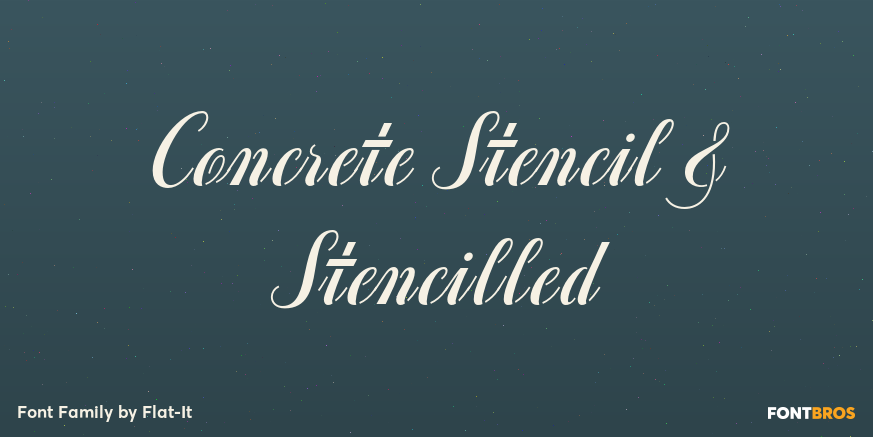
HomeFont BrosScripts: CasualConcrete Stencil & Stencilled Scripts: CasualSpecial EffectScripts: Formal Concrete Stencil & Stencilled FacebookXPinterestWhatsApp 1 of 1 About Concrete Stencil & Stencilled A unique and creative script font, but in a stencil style setup. This is the best stencil script ever.  DOWNLOAD ON FONT BROSThis font is sold and delivered by Font Bros. Font Canyon may earn a commission if you buy through this link. People also explored Ballon Rainbow Font Stronger Font Kouma Font Beautylove Font Centaurus Font Uniser Font Angelicalm Font Beauty Yellow Font Cealisha Font 228 0 TagsConcrete Stencil & Stencilled Font Previous articleEigerNext articleCalligraphia Latina LEAVE A REPLY Cancel reply Comment: Please enter your comment! Name:* Please enter your name here Email:* You have entered an incorrect email address! Please enter your email address here Website: Save my name, email, and website in this browser for the next time I comment. Personal Use Free Mike Ferrari 16017 Personal Use Free Read more about this font Child Witch Personal Use Free Read more about this font Banana Valentine Personal Use Free Read more about this font Rise of Kingdom Personal Use Free Read more about this font BLOG Free vs Paid Fonts: Why Investing in Premium Fonts Is Worth It Free vs Paid Fonts: Why Premium Fonts Are Worth It in 2025 The debate of free vs paid fonts continues in the design world. While... Where to Buy American Fonts Online in 2024 Fonts That Capture the Spirit of New York City Free Fonts Risk: Why Free Fonts Can Be Dangerous for Designers